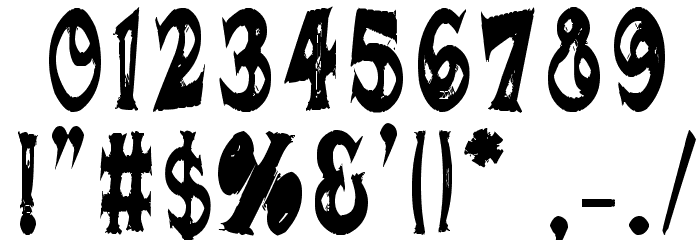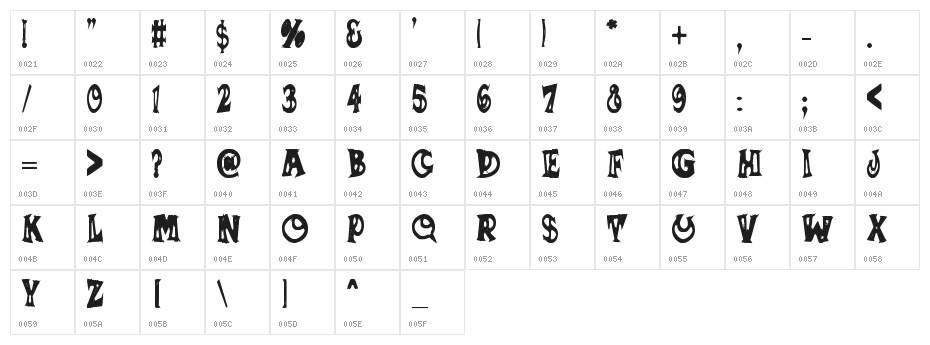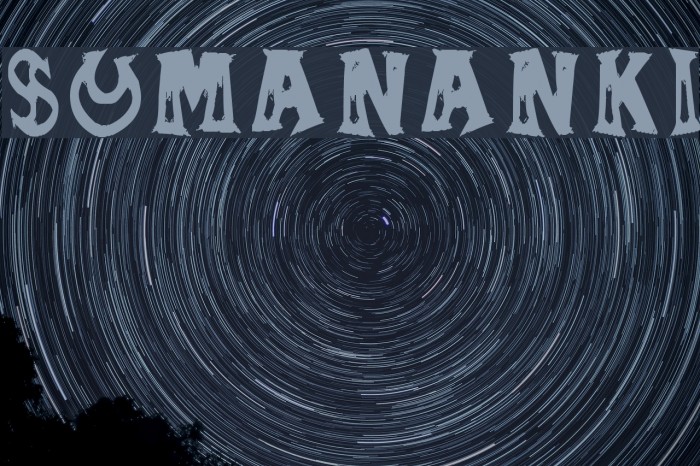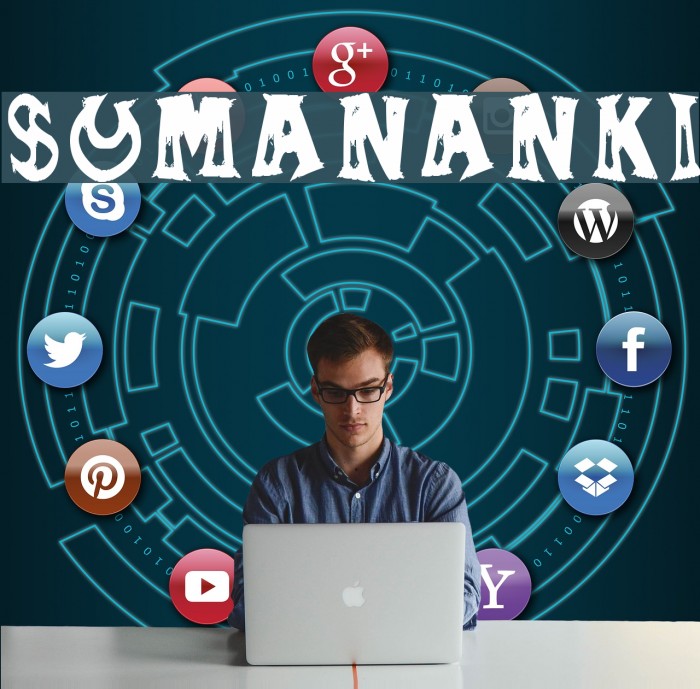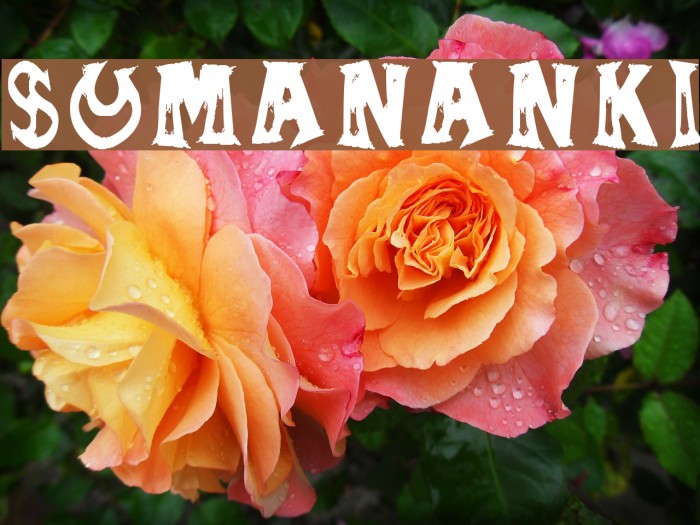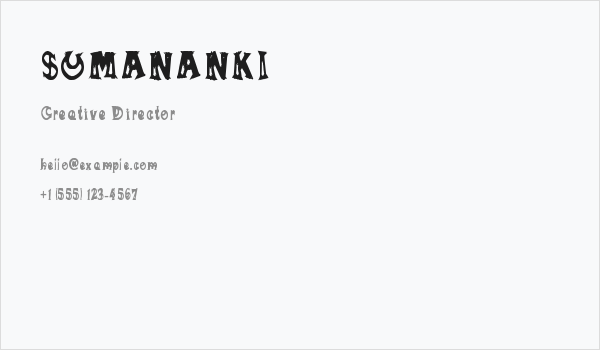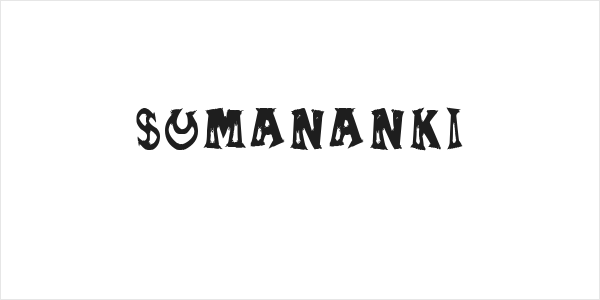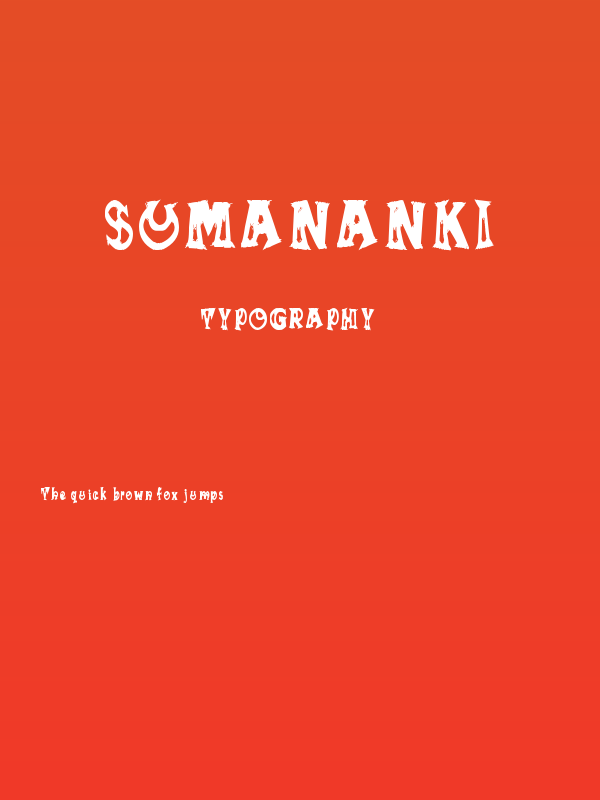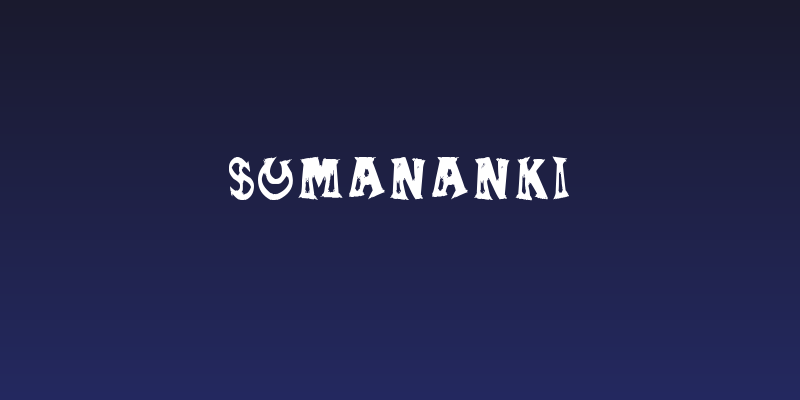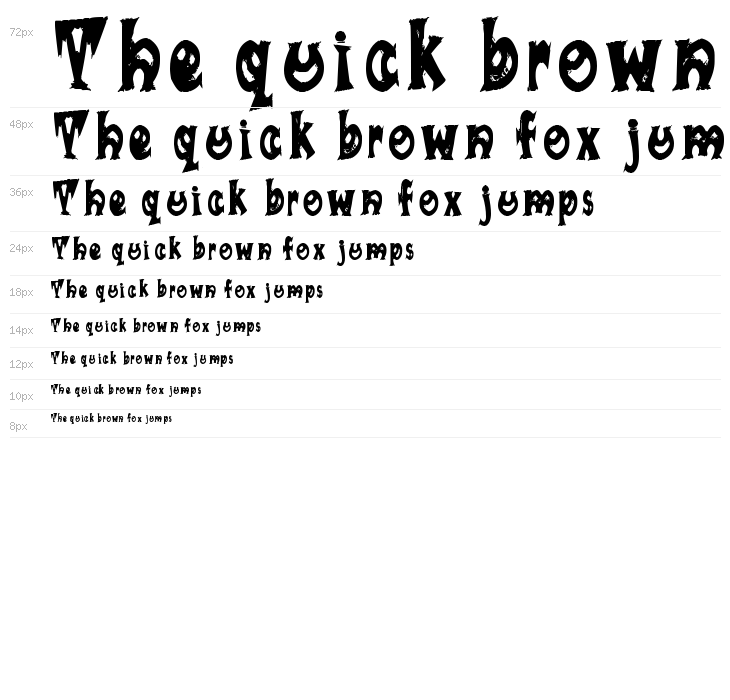
SUMANANKI Font
SUMANANKI Description
This font features a bold and distressed style, with each character appearing as if it has been roughly painted or stamped. The uppercase and lowercase letters, as well as the numerals, exhibit a unique, rugged texture that gives them a dynamic and energetic appearance. The irregular edges and varying stroke widths contribute to a sense of movement and vitality. This font is highly decorative, making it stand out with its artistic flair. The special characters maintain the same distressed aesthetic, ensuring consistency across all glyphs.
| Proposed Projects | Ideal for projects that require a bold statement, such as posters, album covers, or branding for edgy or artistic products. |